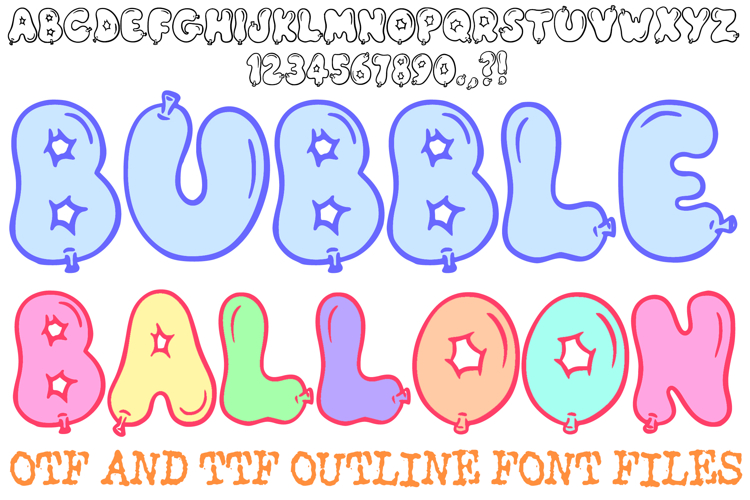
Bubble Balloon Doodle Outline Font Typography Lettering ABC
Let your creativity take flight with the Balloon Bubble Font! This delightful hand-drawn display alphabet features whimsical, air-filled characters designed to look like individual party balloons, complete with realistic tie-knots at the base. It is the perfect choice for birthday invitations, celebration-themed branding, playful stickers, and cheerful digital scrapbooking.
Each letter and number is crafted with soft, rounded curves and features charming star-shaped "shine" highlights that give the font a glossy, 3D appearance. Whether you are designing for a children's event, a festive social media campaign, or fun nursery decor, the Balloon Bubble Font adds a lighthearted, celebratory "pop" to every word.
Realistic Balloon Details: Every character includes a small knot detail at the bottom, mimicking the look of a real tied balloon.
Sparkling Star Highlights: Unique star-shaped reflections add a magical, polished touch to the "puffy" silhouettes.
High-Impact Legibility: Despite the fun, inflated shapes, the clean outlines ensure your text remains easy to read.